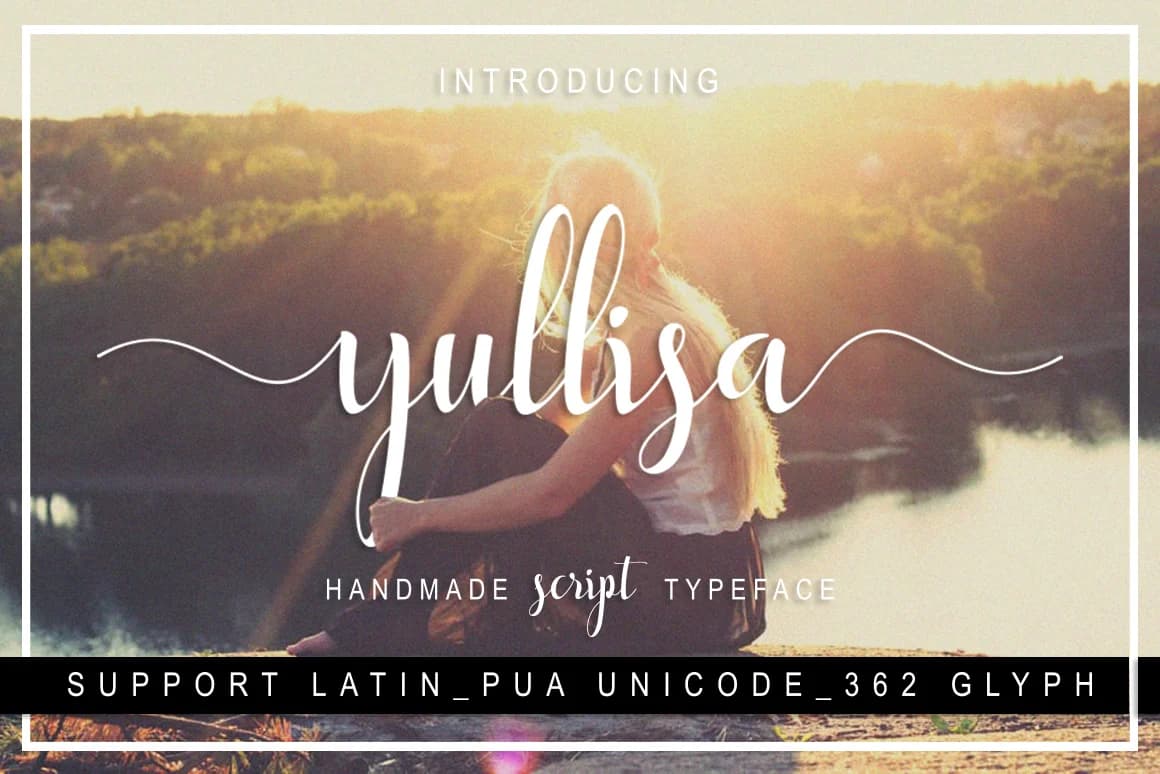
Yullisa Script Font by Bexx Type is a flowing handwritten script that brings authentic hand-lettered elegance to modern typography projects. With its graceful, naturally-formed letterforms, this font excels at creating designs that feel personal, intentional, and carefully crafted rather than generic. Wedding invitation suites gain immediate sophistication from Yullisa's flowing style, where the script anchors formal designs while maintaining a warmly approachable character. Custom cosmetic packaging and luxury beauty brands benefit from this font's artisanal quality, giving them that coveted handmade impression that discerning consumers now expect from premium products.
Beyond high-end applications, Yullisa performs beautifully on handmade stationery sets where its organic appearance feels entirely genuine and authentic. The consistent letterforms and smooth connections between characters make it remarkably readable even at smaller sizes or when layered thoughtfully with other fonts. Social media graphics gain visual distinction from Yullisa's distinctive letterforms, helping your content break through crowded feeds where generic scripts blend invisibly. This script brings the same warmth to boutique brand identity systems, personalized print projects, and custom product labels that transform designs from mass-produced to genuinely handcrafted.
- Elegant, Flowing, Yullisa Script
Yullisa Script Font is a script font that shines as a display or heading face. Pair it with a clean sans-serif or serif font for body text β the contrast creates a clear hierarchy while the two styles stay balanced and easy to read.
Yullisa Script Font
by Bexx Type